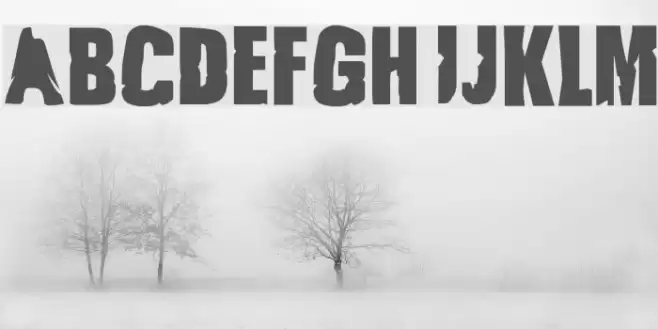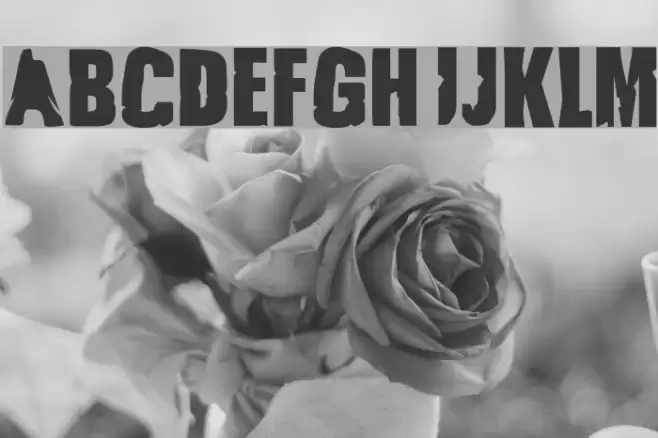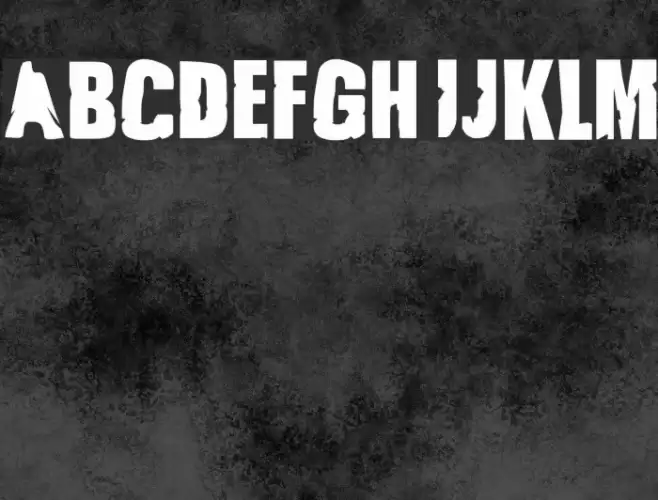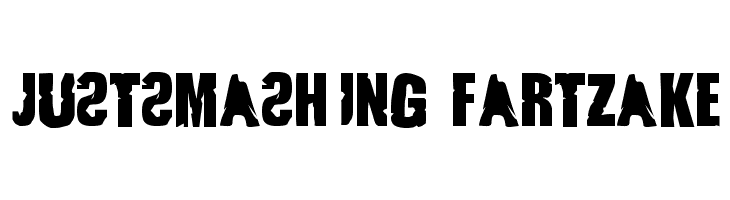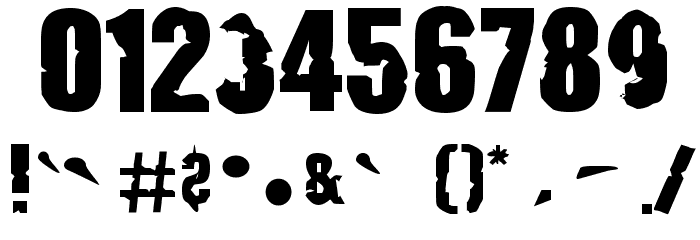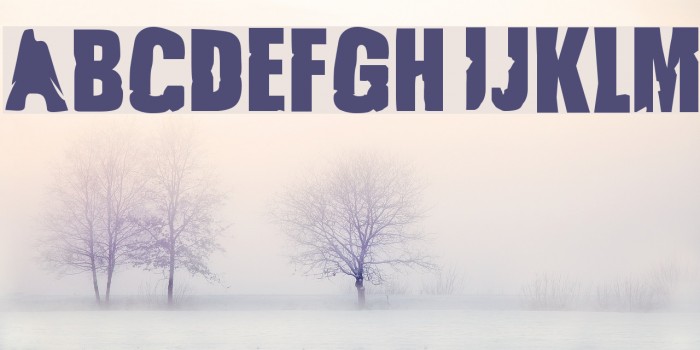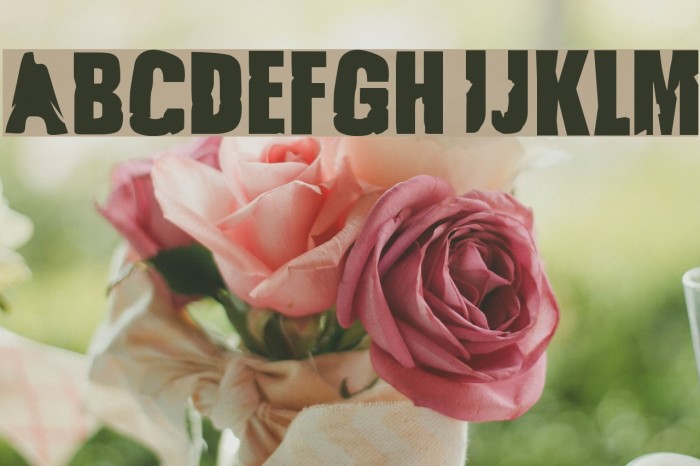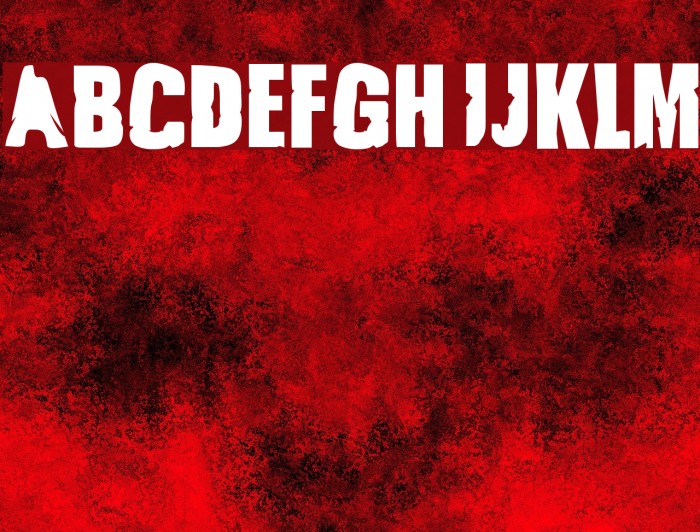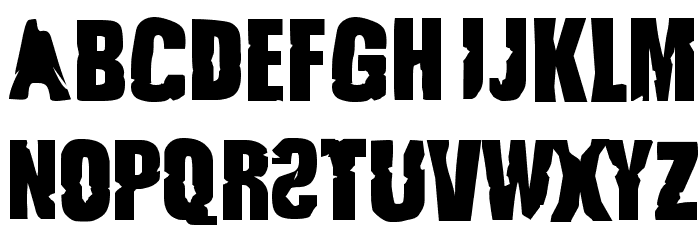
JustSmashing Fartzake Font
JustSmashing Fartzake Description
This font is a bold, decorative typeface with a distressed, grunge aesthetic. The characters are heavily stylized with irregular edges and a rough texture, giving them a unique, edgy appearance. The uppercase and lowercase letters maintain a consistent height, creating a uniform look across the alphabet. The numbers and special characters follow the same design principles, ensuring cohesion throughout the typeface. This font's distinctive style makes it ideal for projects that require a strong visual impact.
A bold, distressed decorative font with a grunge aesthetic from Capitals fonts.
- Proposed Projects: Ideal for posters, album covers, branding for edgy products, or any design needing a bold statement.
- Overall Style: Grunge, Edgy, Modern